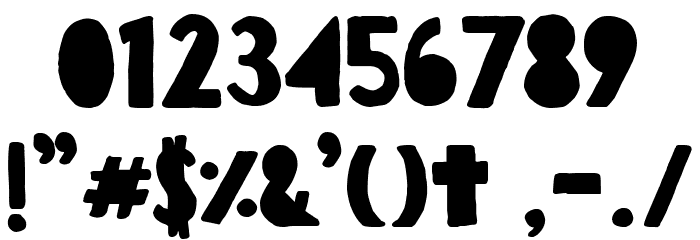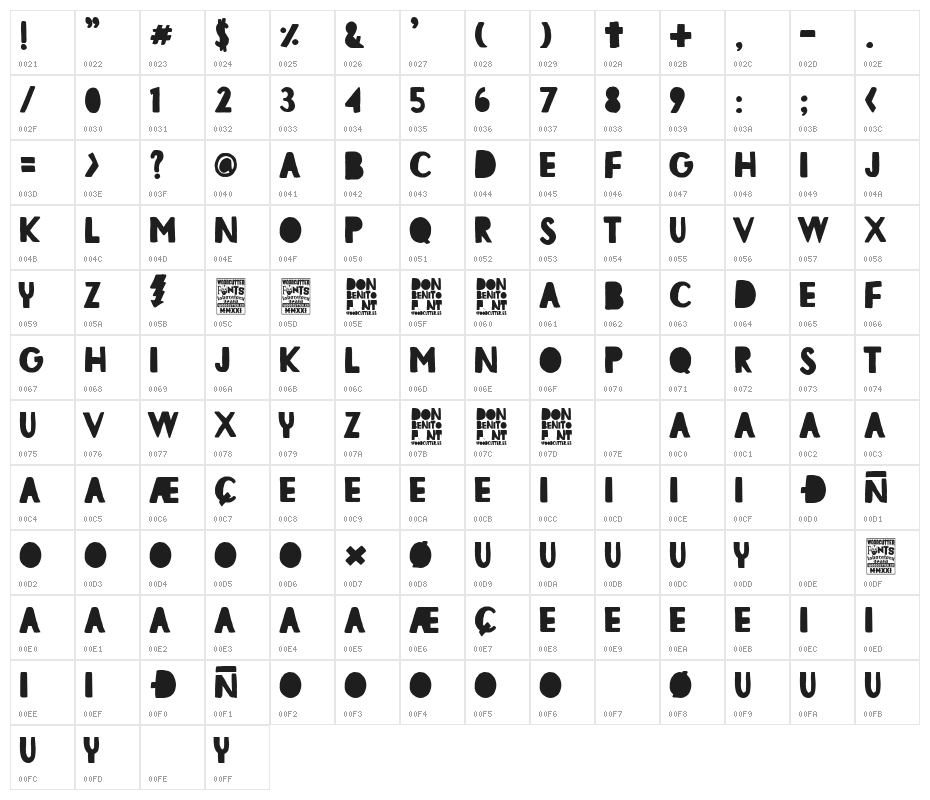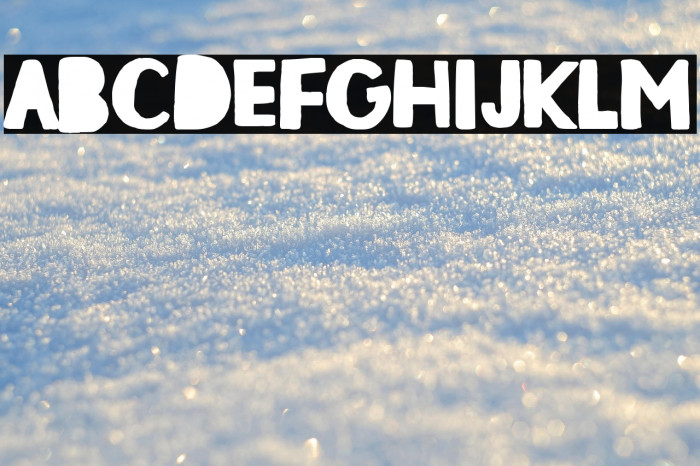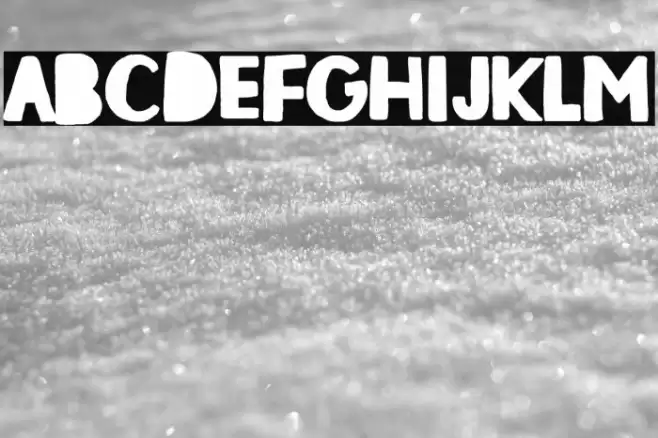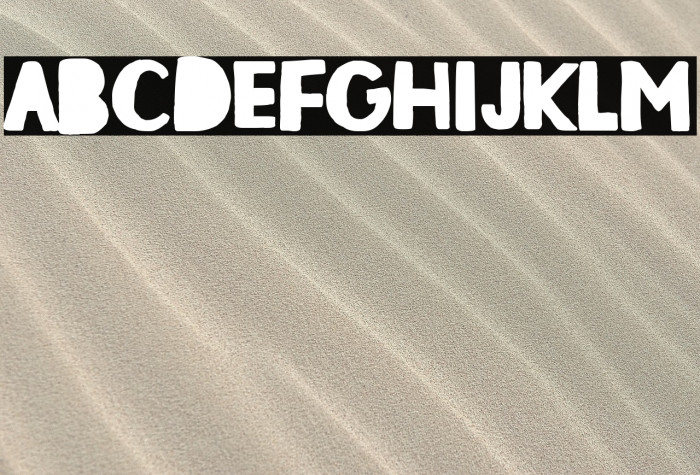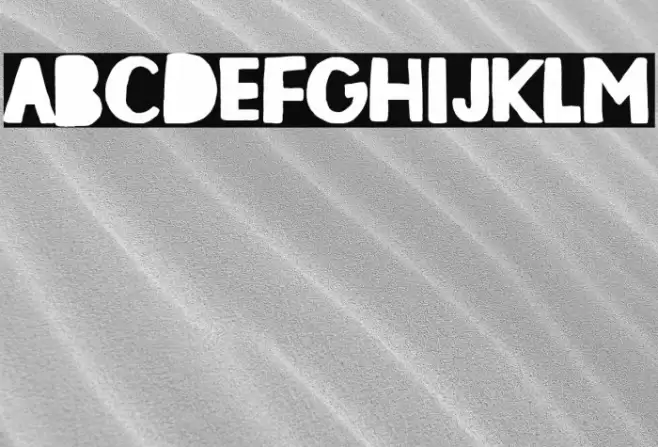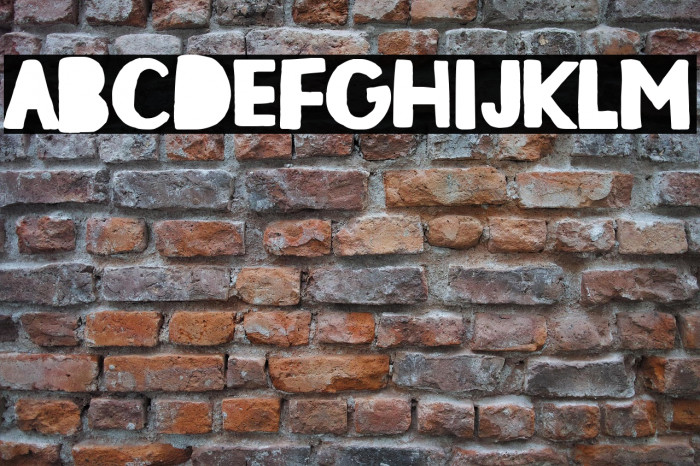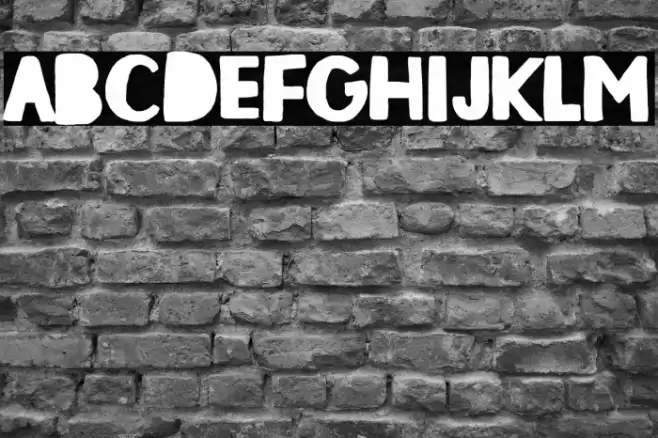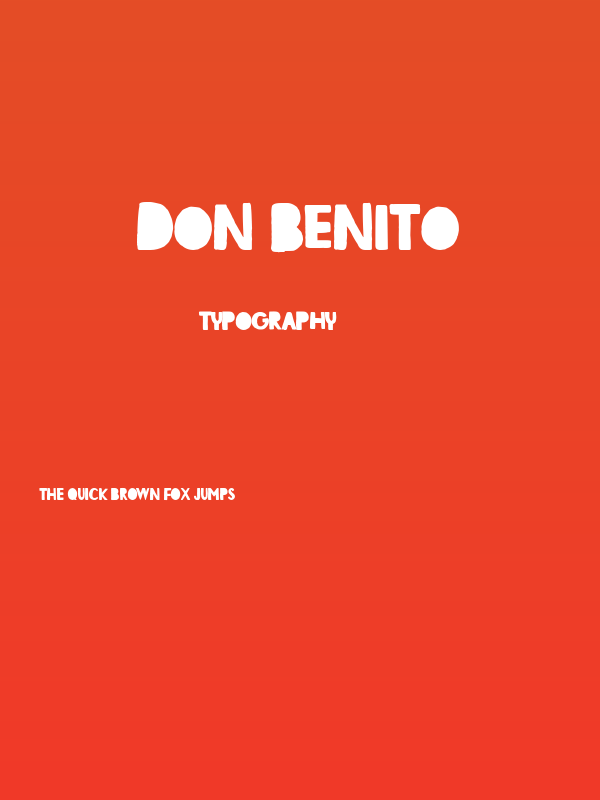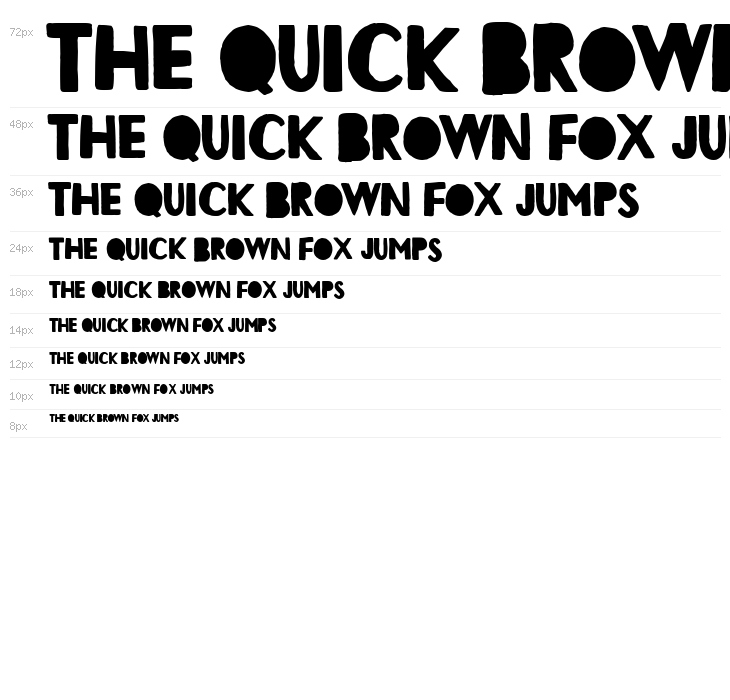
Don Benito Font
Don Benito Description
This font features bold, thick strokes with a playful and slightly irregular design, giving it a hand-drawn appearance. The characters are robust and impactful, making them stand out with their unique style. The uppercase and lowercase letters maintain a consistent weight, while the numbers and special characters complement the overall aesthetic. The font's boldness and quirky charm make it suitable for creative and informal applications, where a strong visual presence is desired.
| Overall Style | Playful, Hand-drawn |
| Proposed Projects | Ideal for posters, children's books, playful branding, and creative projects that require a bold and fun typeface. |